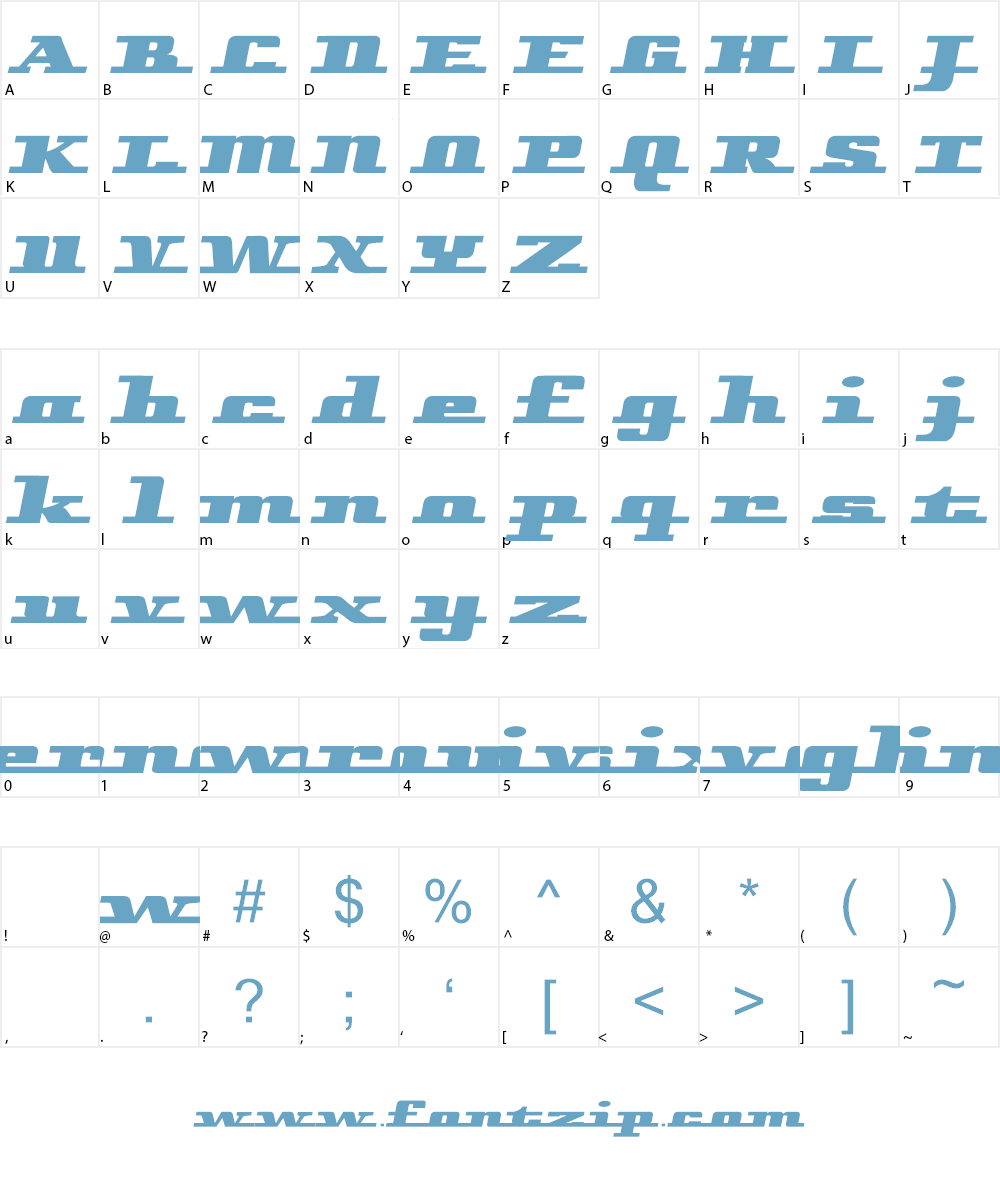
I made this in the late nineties as a logo for our design studio Remarcle and added to it in 2000. It's a retro fifties / sixties font, with two extra fonts added; one to use at the front, and one to use at the end of a word. Didn't feel like making numbers, as you may have noticed.